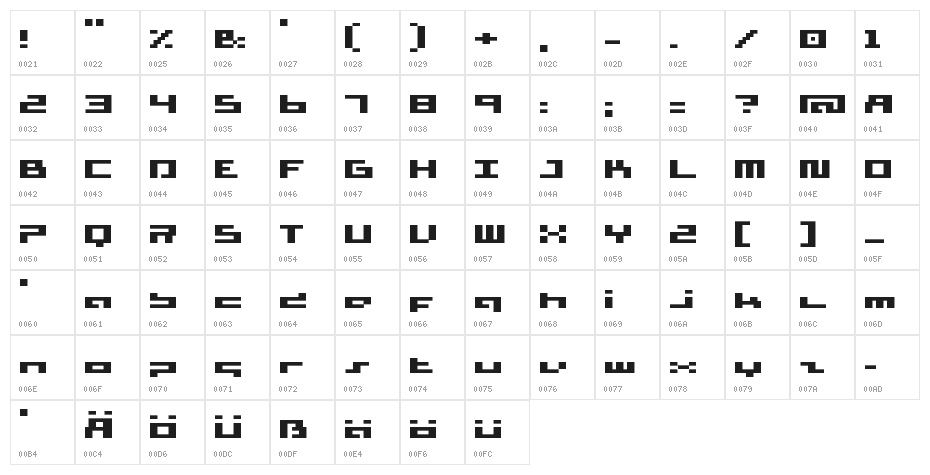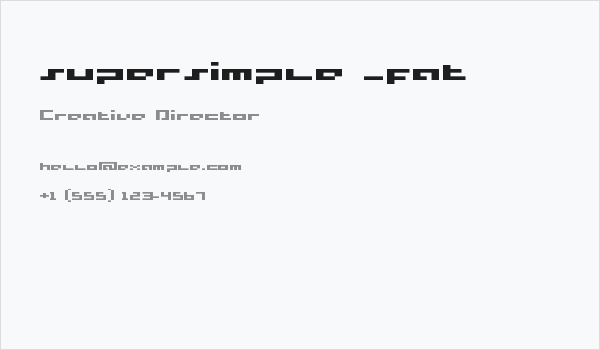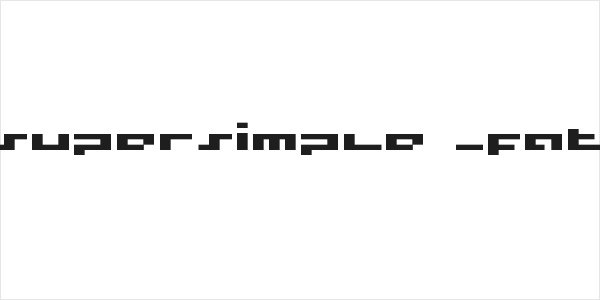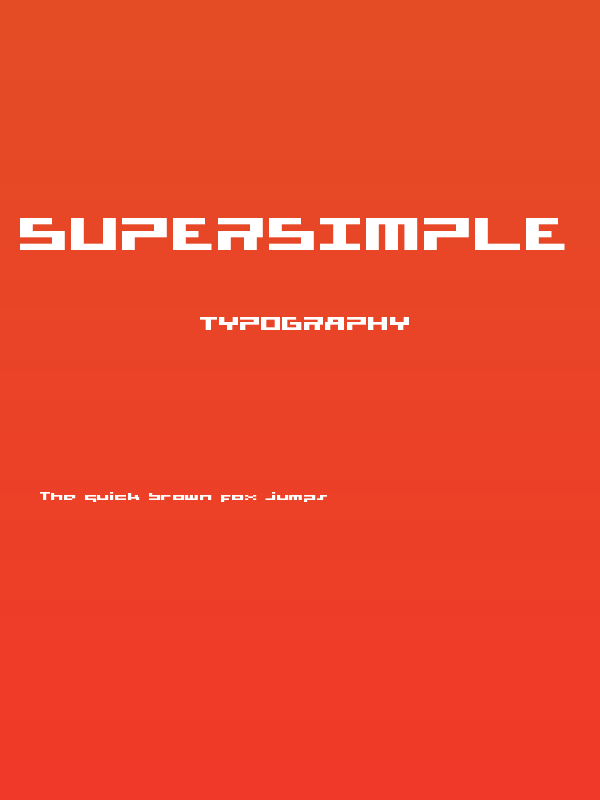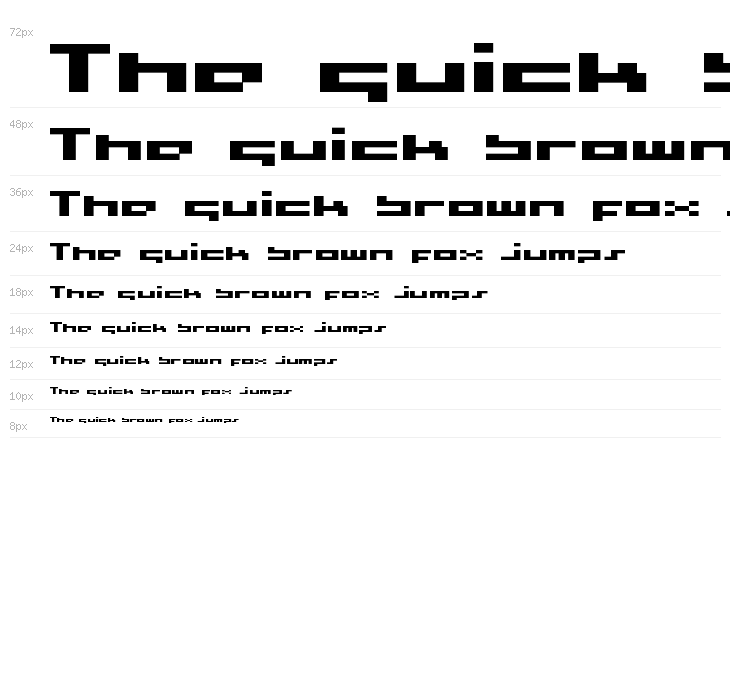
supersimple _fat Font
supersimple _fat Description
This font features a bold, geometric design with a pixelated, blocky appearance reminiscent of early digital or video game typography. The characters are uniformly thick, creating a strong visual impact. Each letter and number is constructed with straight lines and right angles, giving it a distinctly modern and digital feel. The uppercase and lowercase letters maintain a consistent height, while the numerals are equally robust. Special characters follow the same design principles, ensuring uniformity across the typeface. This font is ideal for projects that require a retro or tech-inspired aesthetic.
| Proposed Projects | Ideal for video game graphics, tech-themed posters, digital art, and retro-inspired designs. |